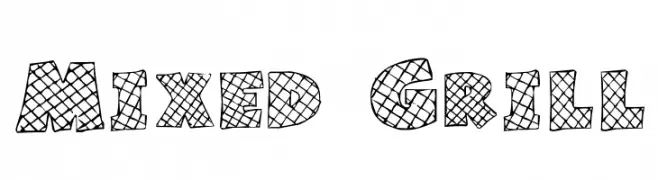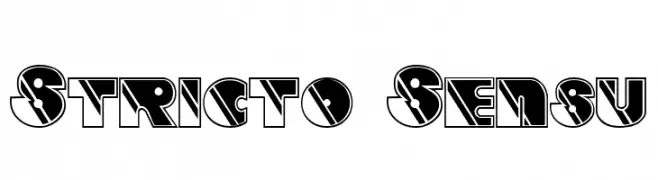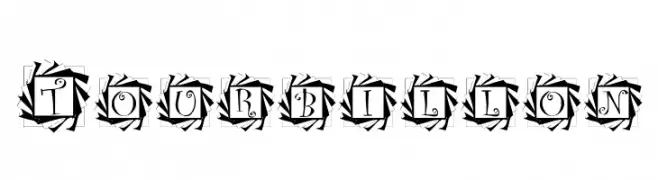
A decorative serif font with ornate circular frames around each letter.
A playful font with characters encased in paw prints, ideal for fun and whimsical designs.
A bold, playful font with jigsaw puzzle piece elements.
A rugged, distressed font with a hand-drawn, vintage style.
A decorative font with letters integrated into sailboat designs, perfect for nautical themes.
A bold, decorative font with a crosshatch pattern, perfect for eye-catching designs.
A bold, geometric font with high contrast and angular design.
A decorative font with letters encased in a rose motif, offering an artistic and elegant style.